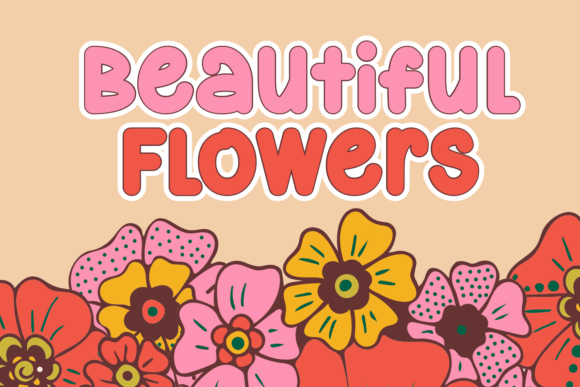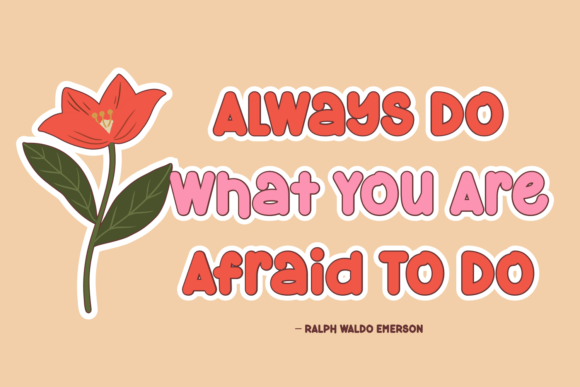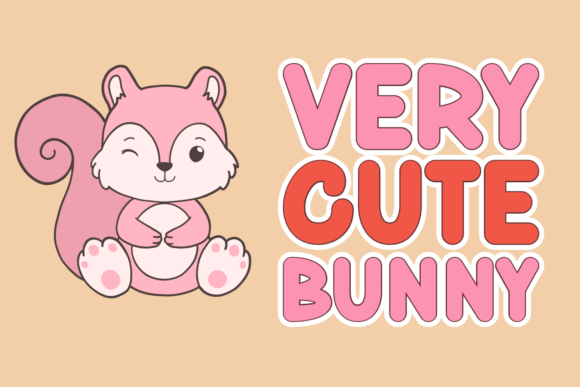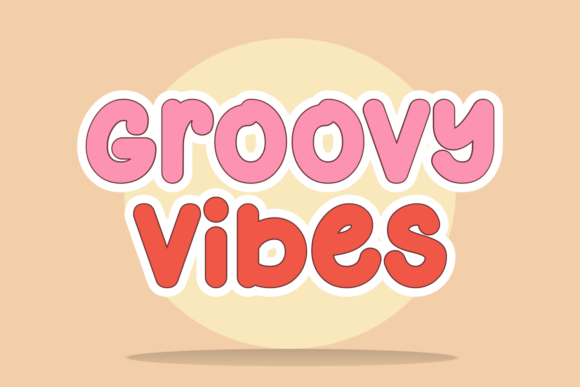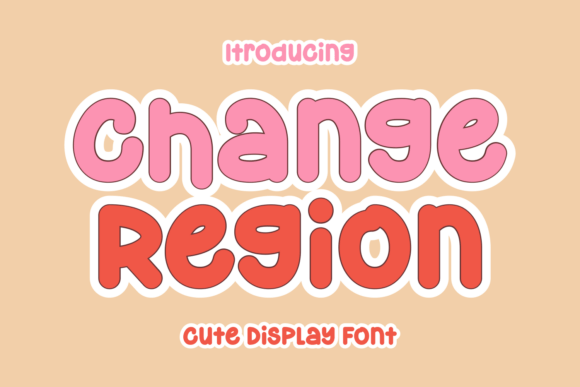
Give Your Designs a Personal Touch with Change Region Font
Have you ever sat staring at a blank page, waiting for that spark of creativity to strike? Maybe you’ve been brainstorming ideas for hours, but nothing seems quite right. Then, in a flash of inspiration, it hits you – a unique handwritten font that perfectly captures the essence of your design. For many designers, this moment is the starting point for something truly special.
Enter Change Region Font, a sweet and friendly handwritten font that’s sure to add a personal touch to your designs. With its natural and unique style, the possibilities are endless. Whether you’re creating a logo, a social media post, or a full-fledged branding campaign, Change Region Font is the perfect choice to make your work stand out.
Designer Review: Change Region Font
Overall, I’d say Change Region Font is a decent tool, but it has some limitations that prevent it from being truly effective.
Easy to use interface: Change Region Font has a user-friendly interface that makes it simple to navigate and make changes to your font.
Quick results: The tool provides quick results, allowing you to see the changes you’ve made in real-time.
Font customization: Change Region Font offers a wide range of font options, allowing you to customize your text to fit your desired style.
Limited compatibility: Change Region Font is only compatible with certain platforms, which may limit its use.
No advanced features: The tool lacks advanced features, such as font pairing or font customization for specific devices.
No support for international fonts: Change Region Font does not support international fonts, which may be a limitation for users who need to work with languages other than English.
While Change Region Font is a useful tool, its limitations prevent it from being a top choice for designers. If you’re looking for a tool that offers advanced features and compatibility with a wide range of platforms, you may want to consider other options.